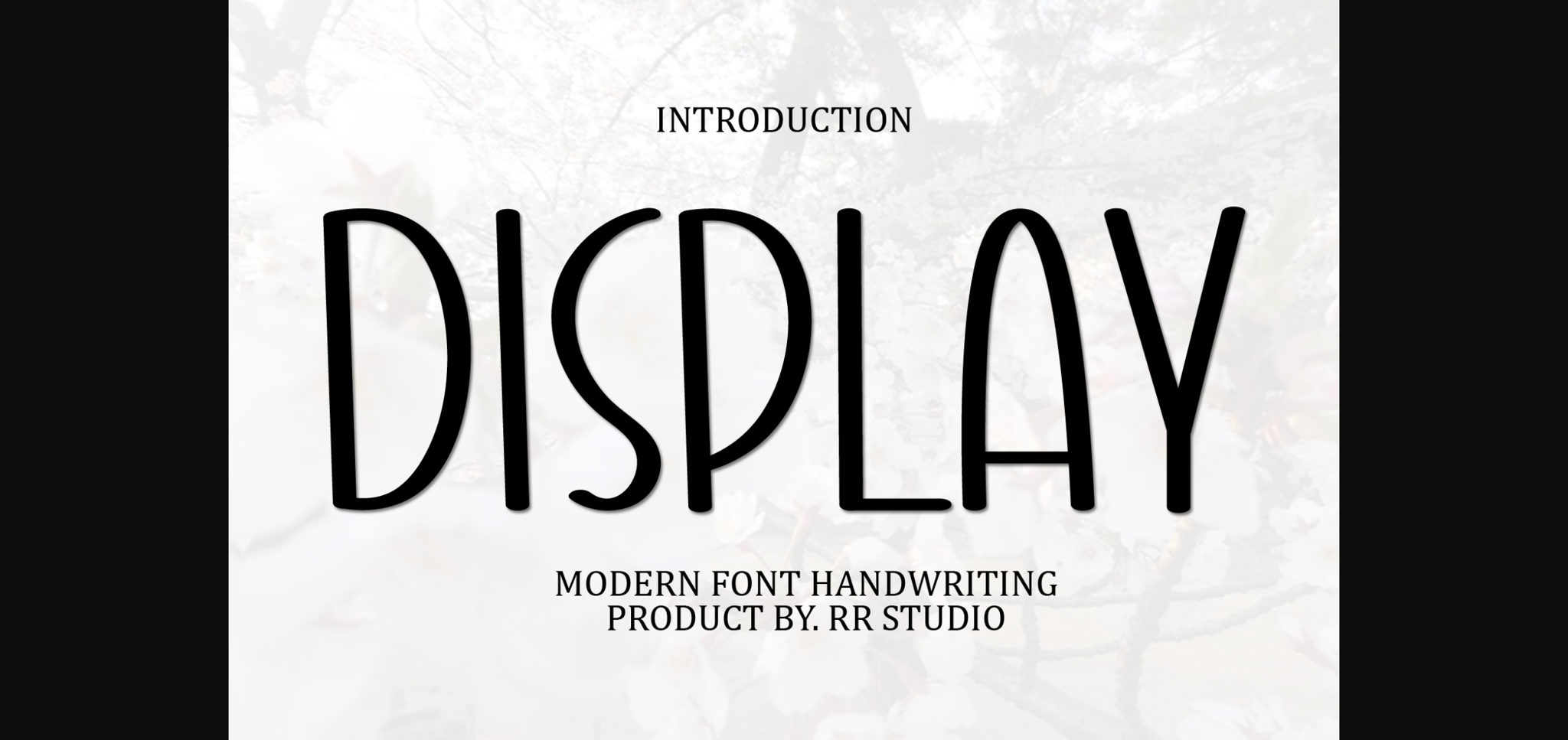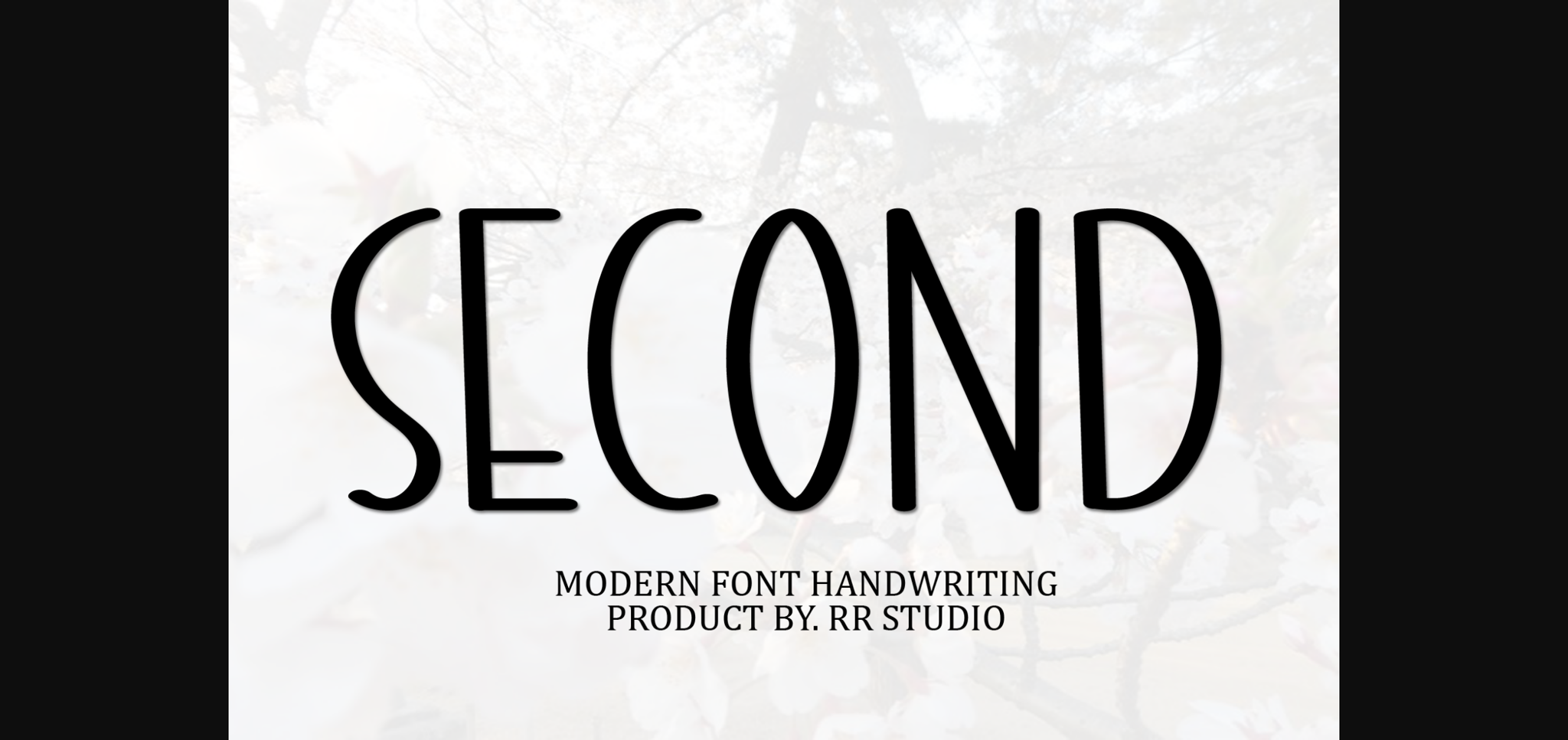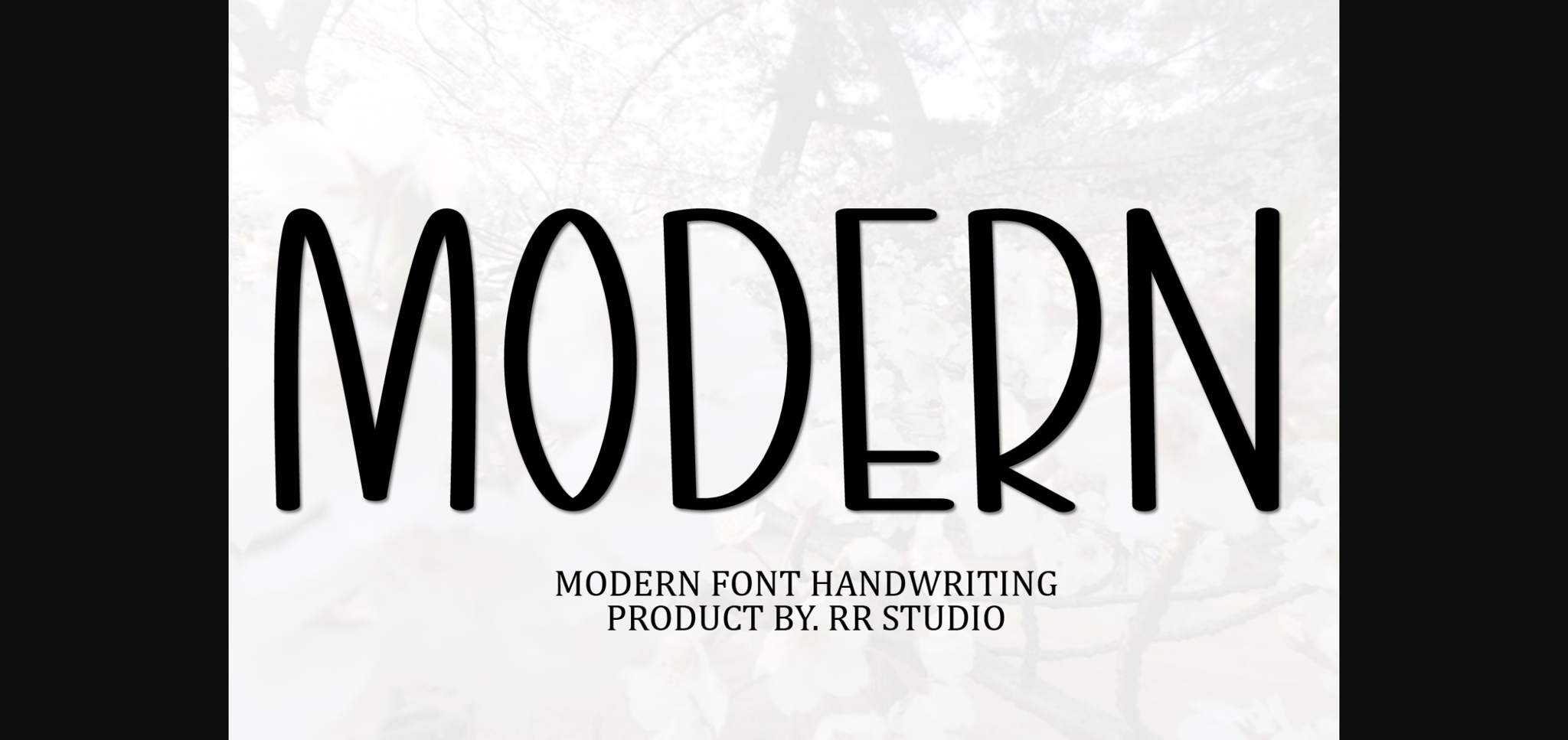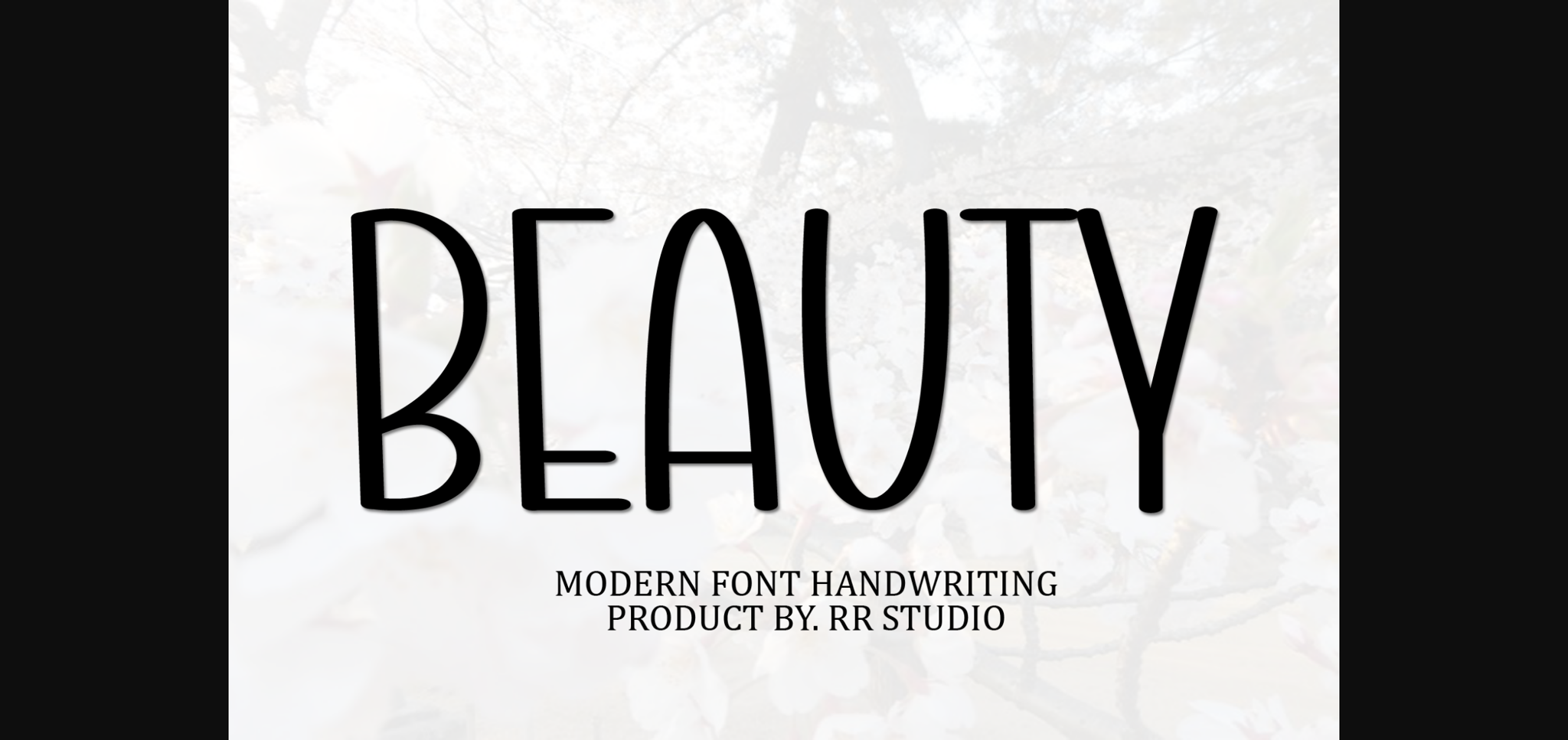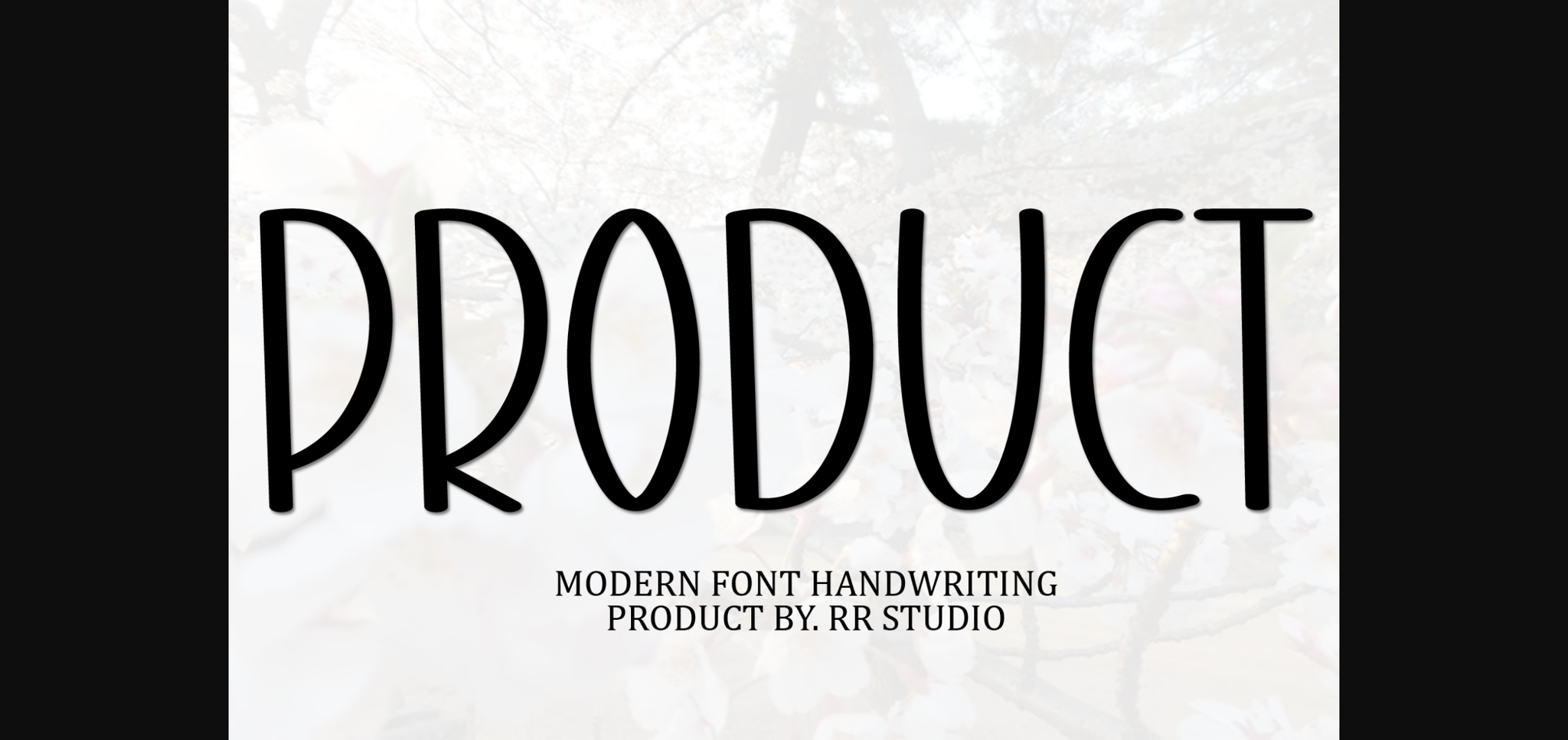
HomeSans Serif FontsDisplay Font Sans Serif Fonts Display Font FacebookXPinterestWhatsApp 1 of 7 ... Display Font Poster 2... Display Font Poster 3... Display Font Poster 4... Display Font Poster 5... Display Font Poster 6... Display Font Poster 7... About Display Font Display is a classic and simple handwritten sans-serif font. Add this versatile font to your projects and you will love the results! DOWNLOAD NOW People also explored Blessing and Struggle Font Cool Summer Font Sunflower Font Kyoto Love Font Copperplate Deco Anything Font Mudega Font Ryleighi Font Champion Font 482 0 TagsDisplayDisplay Font Previous articleOuter Easter FontNext articleMidnight Font LEAVE A REPLY Cancel reply Comment: Please enter your comment! Name:* Please enter your name here Email:* You have entered an incorrect email address! Please enter your email address here Website: Save my name, email, and website in this browser for the next time I comment. Personal Use Free Spectrashell Personal Use Free Read more about this font Fakedes Personal Use Free Read more about this font Fat Max Personal Use Free Read more about this font Limejuice Personal Use Free Read more about this font BLOG Best Fonts for T-Shirt Design – Top 2025 Picks In 2025, t-shirt design has become more than just fashion—it's a form of self-expression. Whether you're... Top 10 Handwritten Fonts That Elevate Your Designs Exploring Font Trends How to Install and Use Fonts on Windows, macOS, and Web Projects